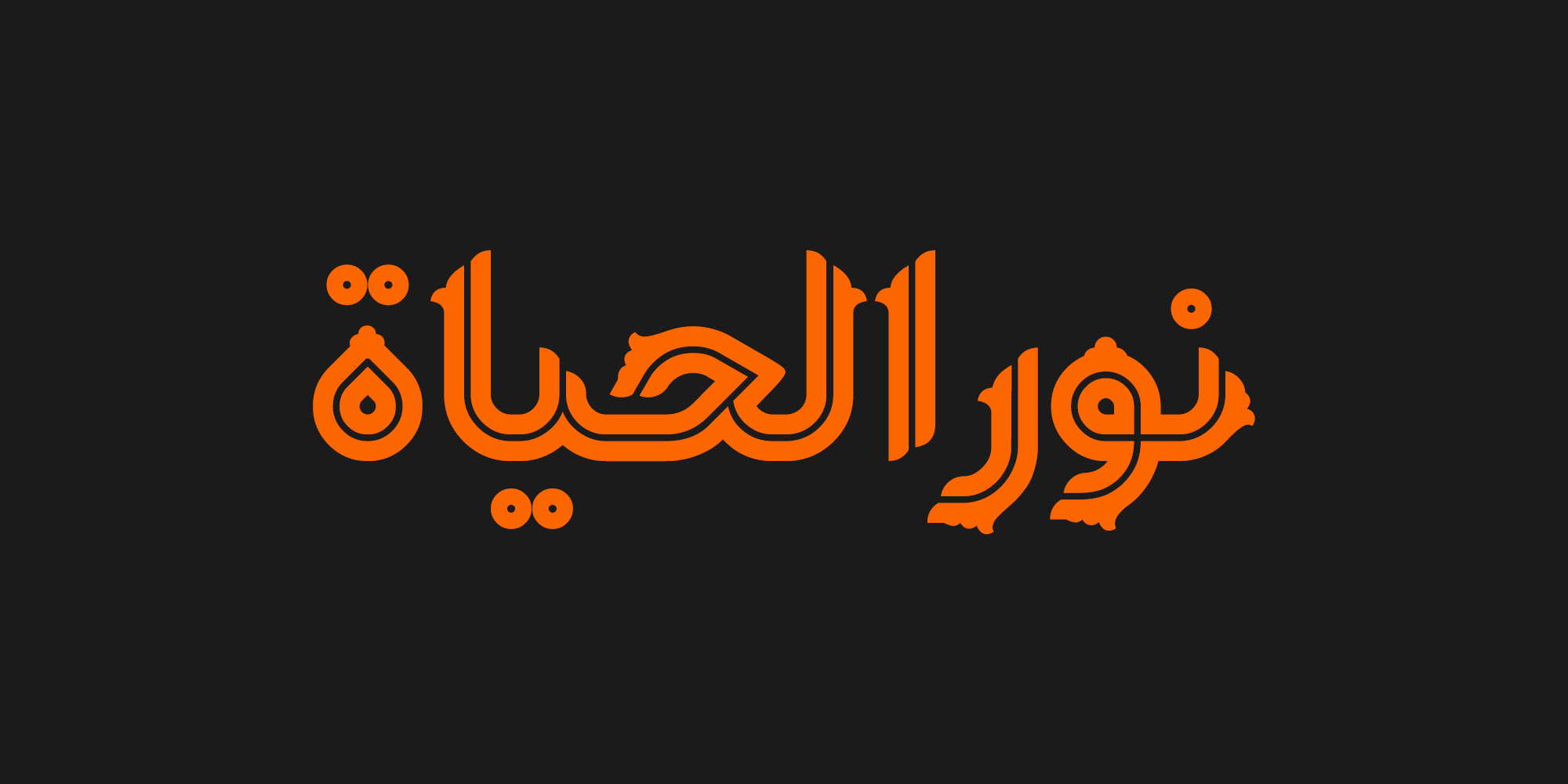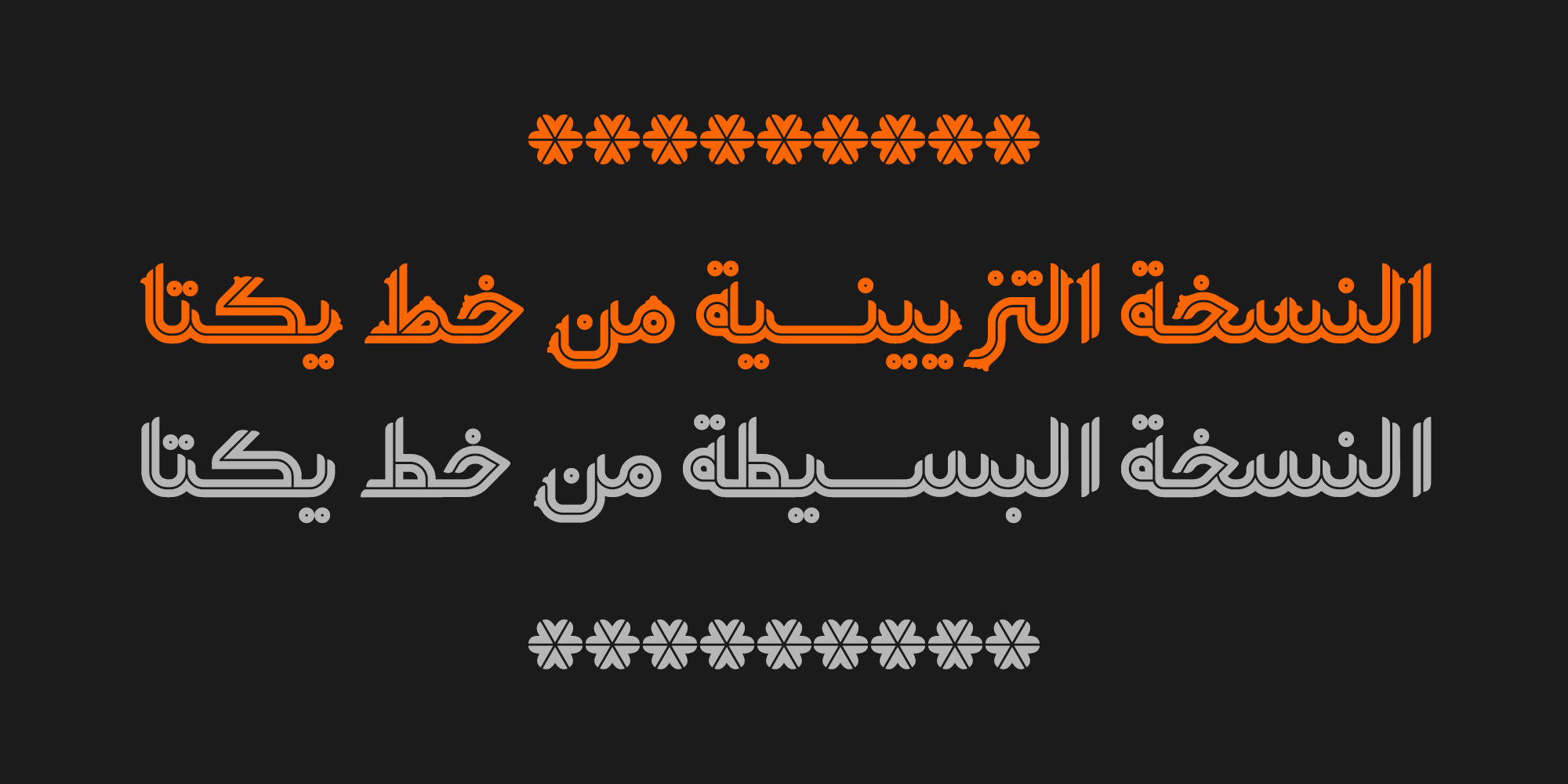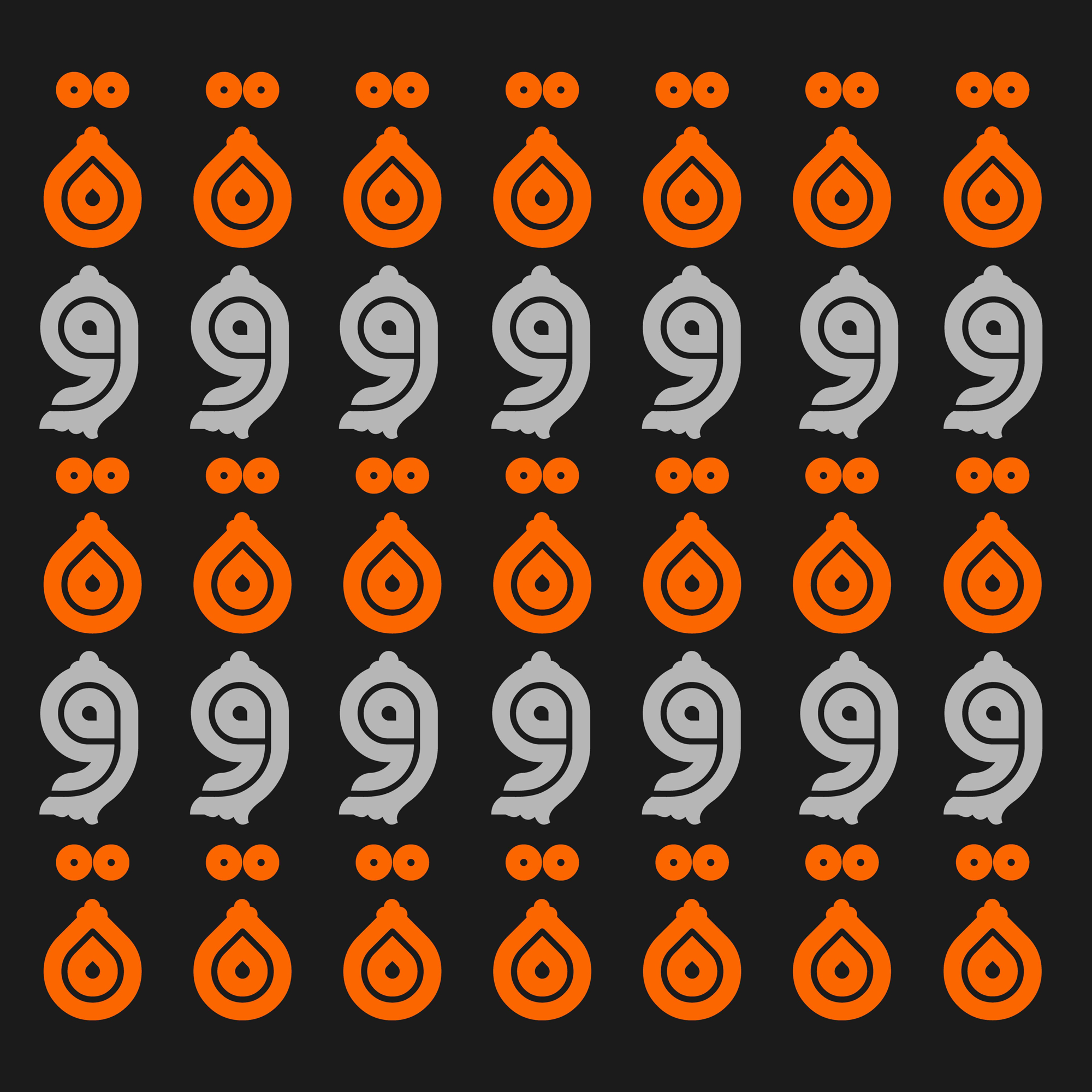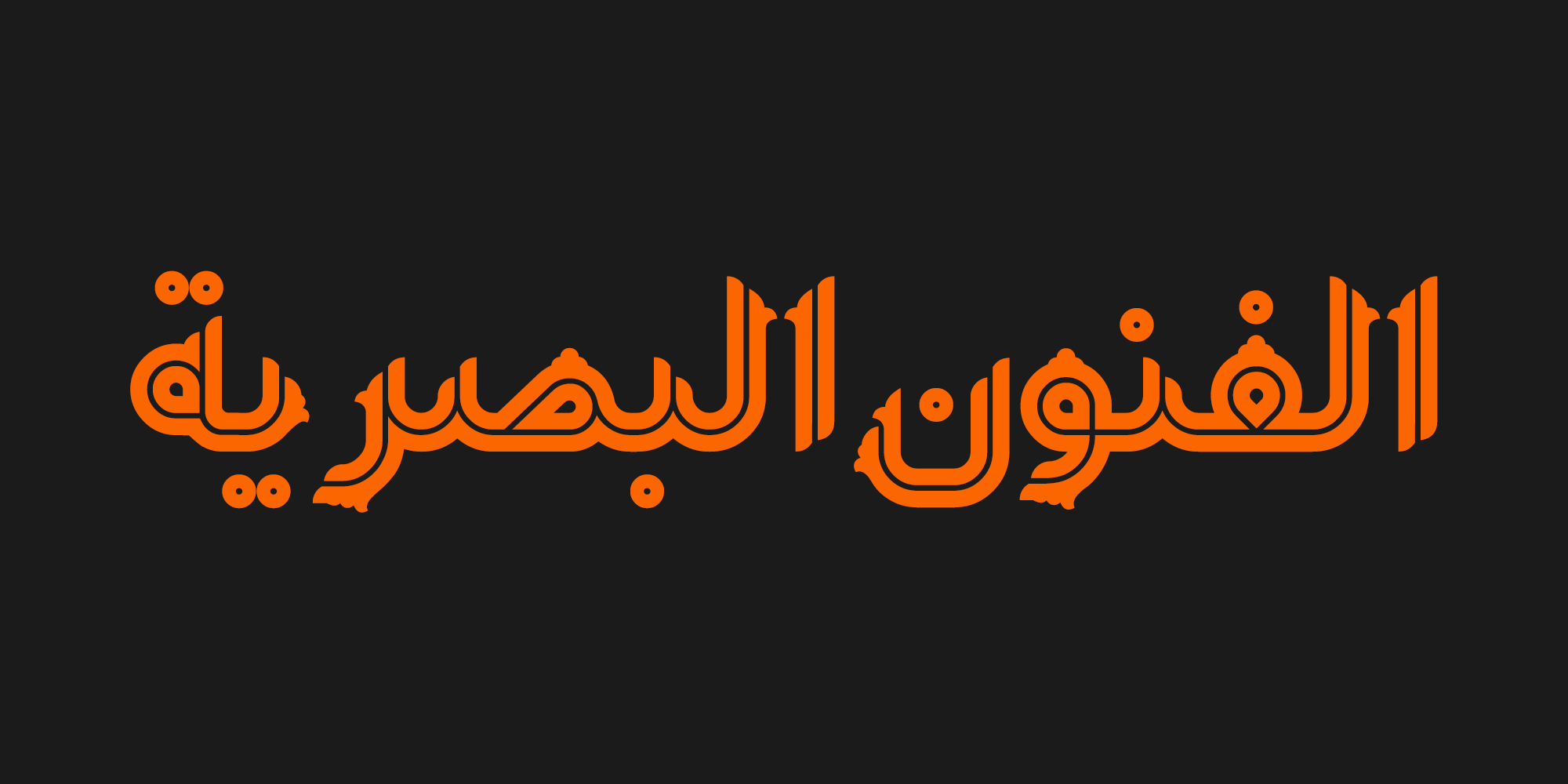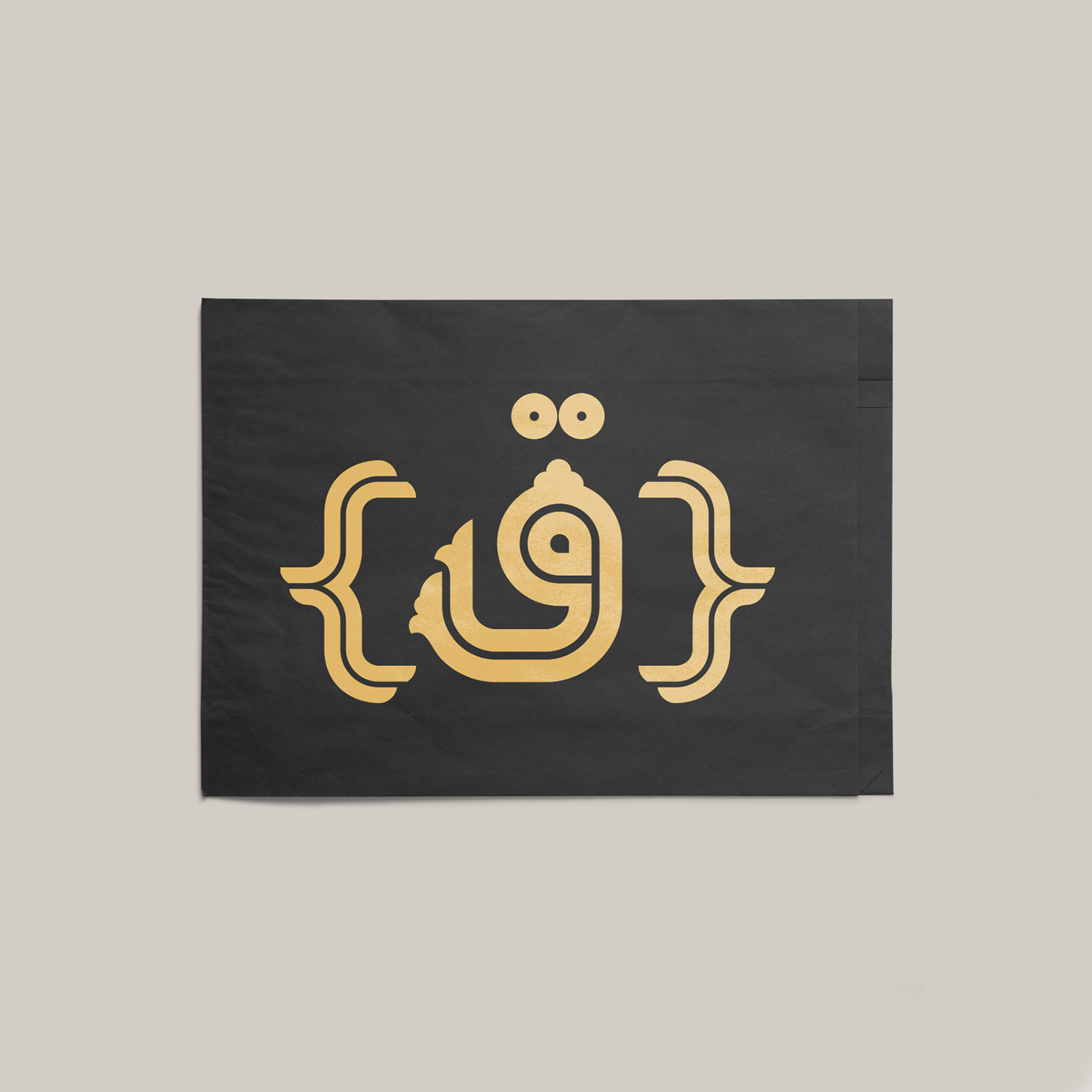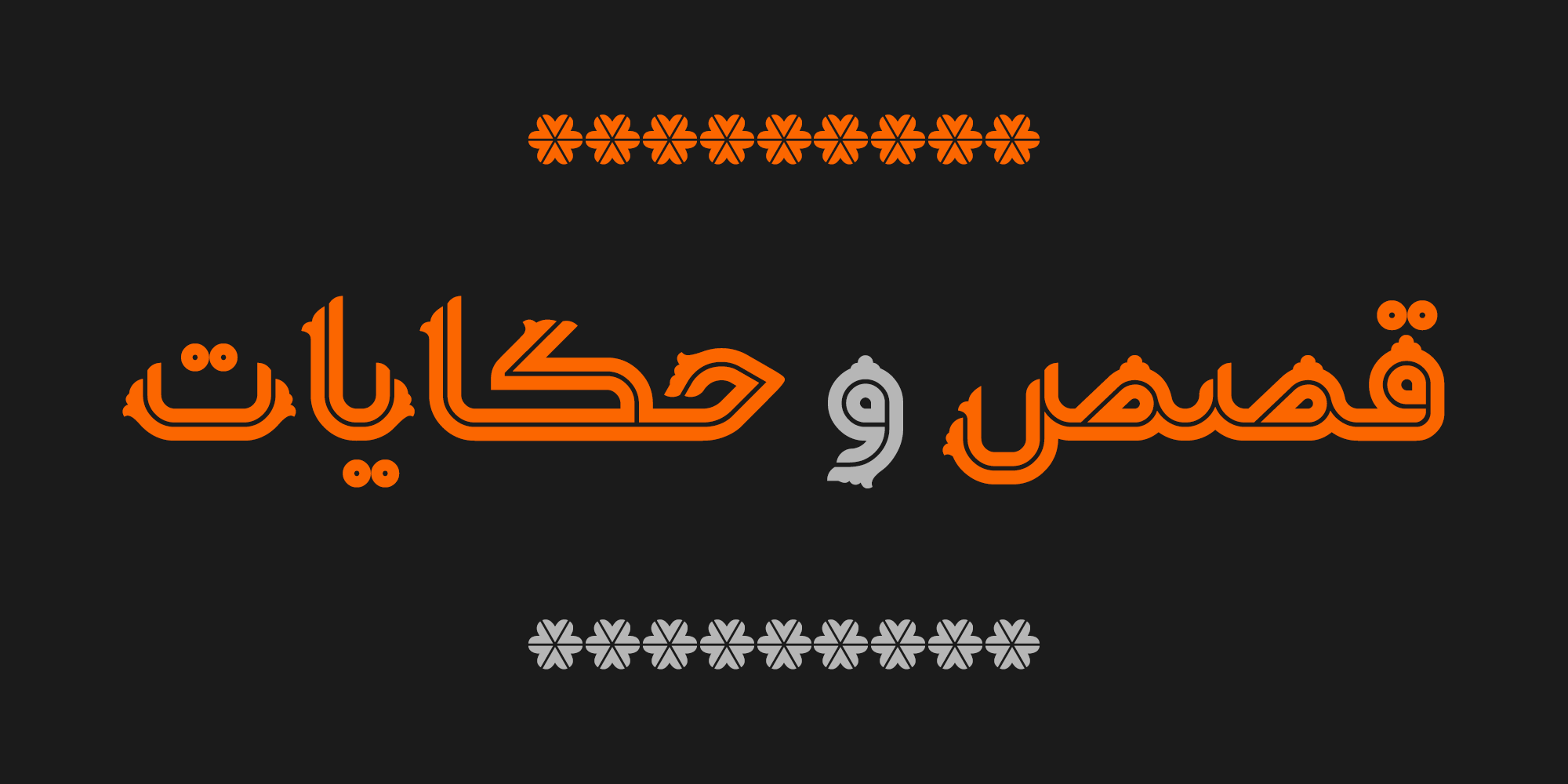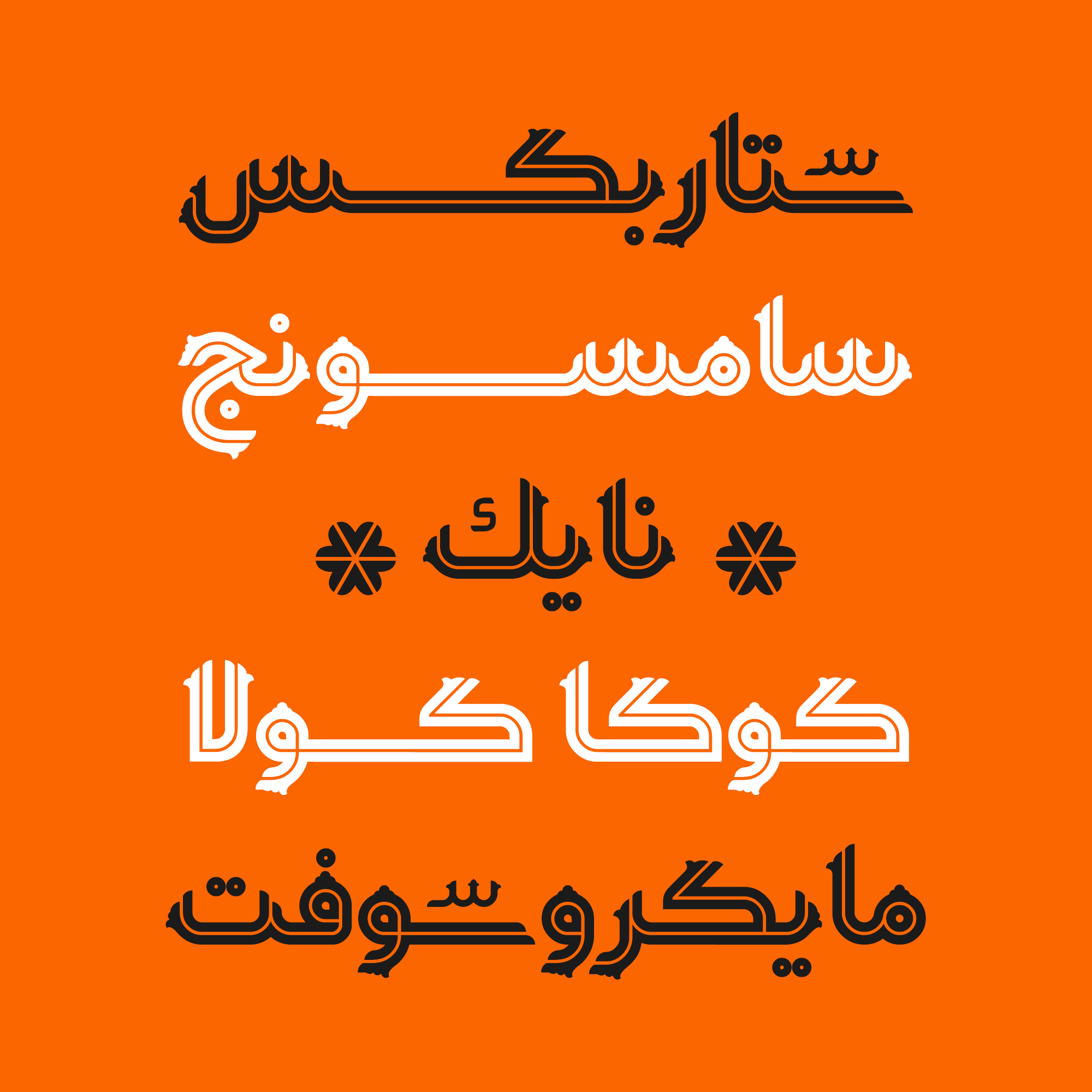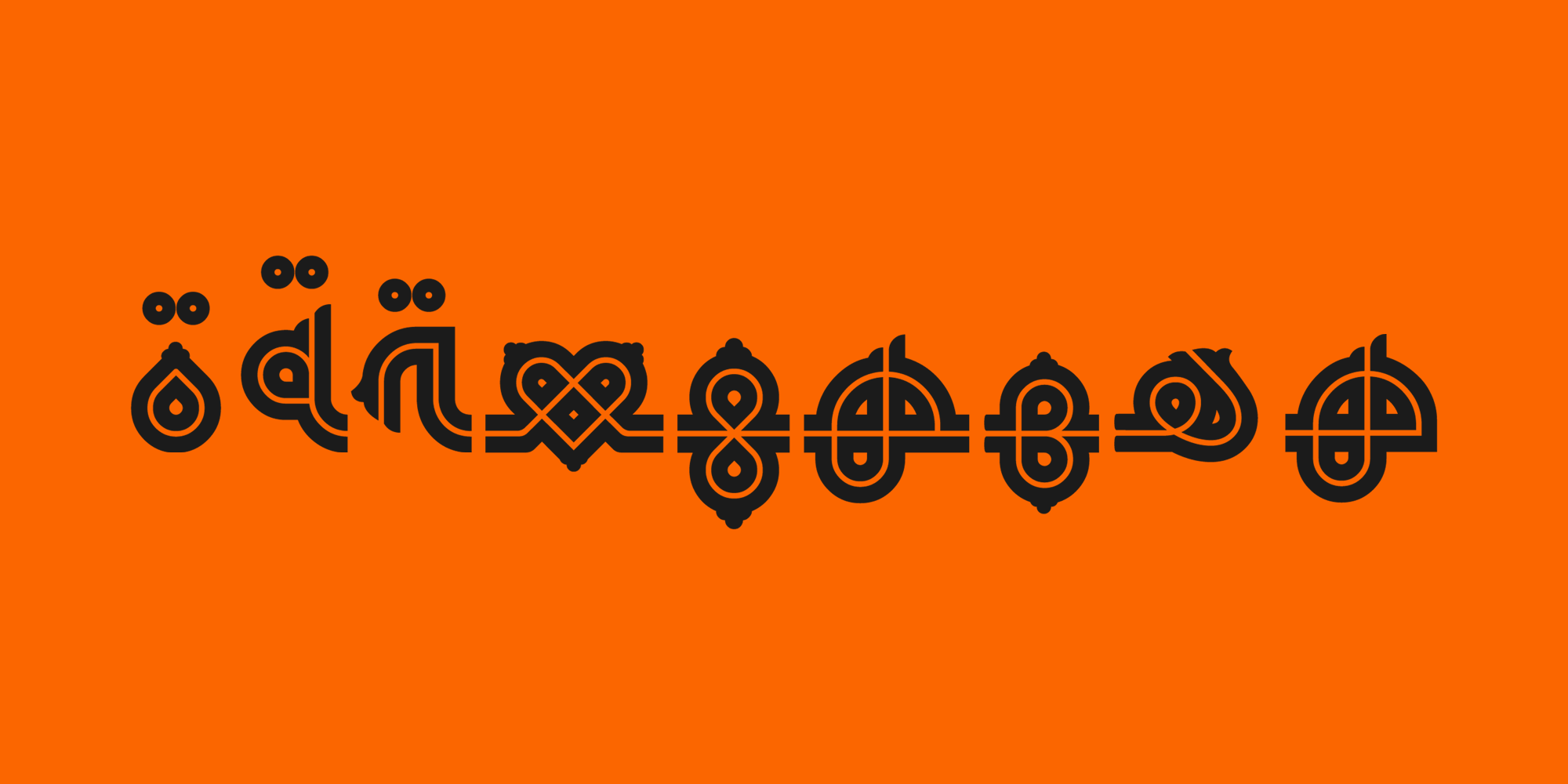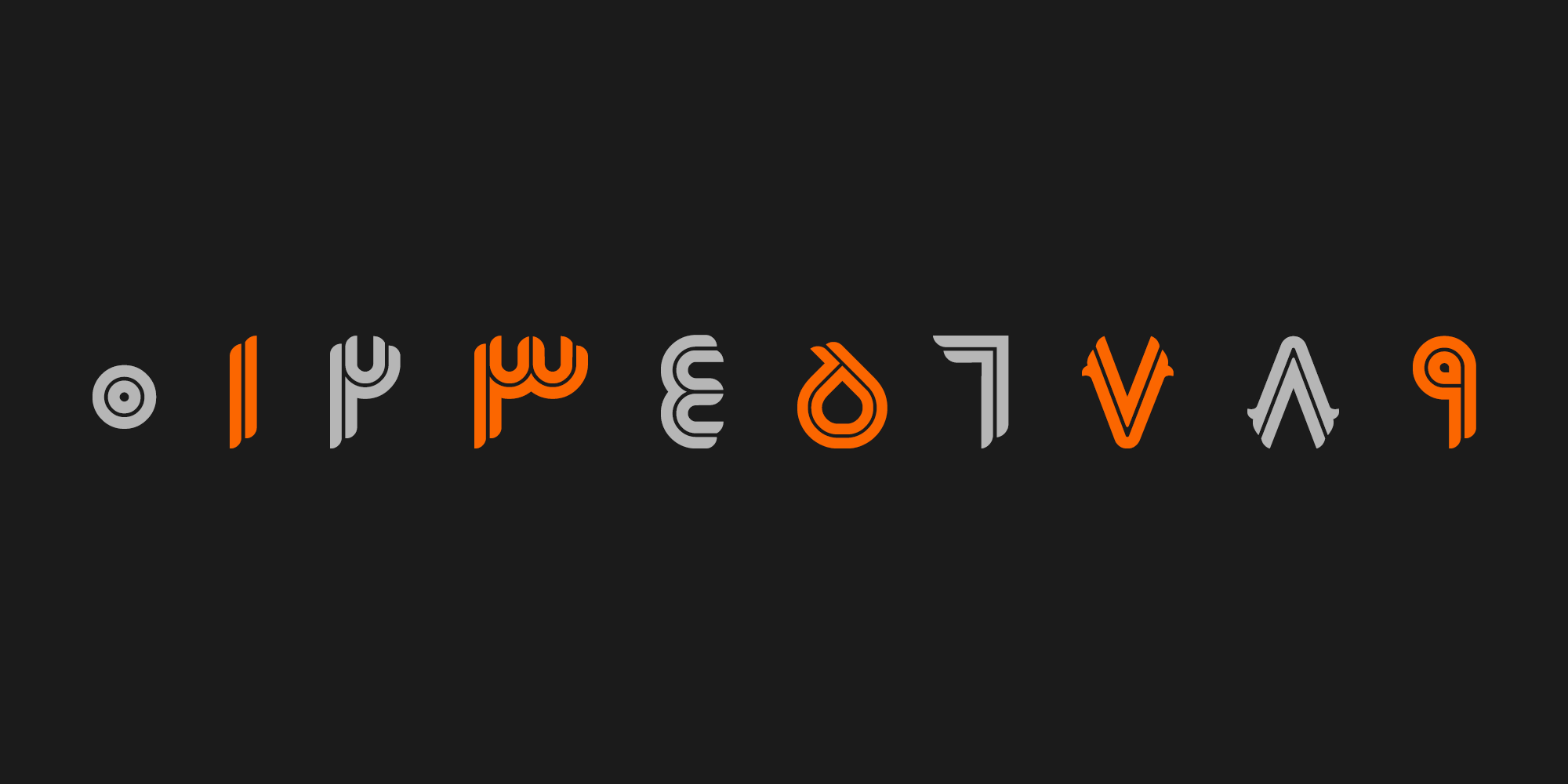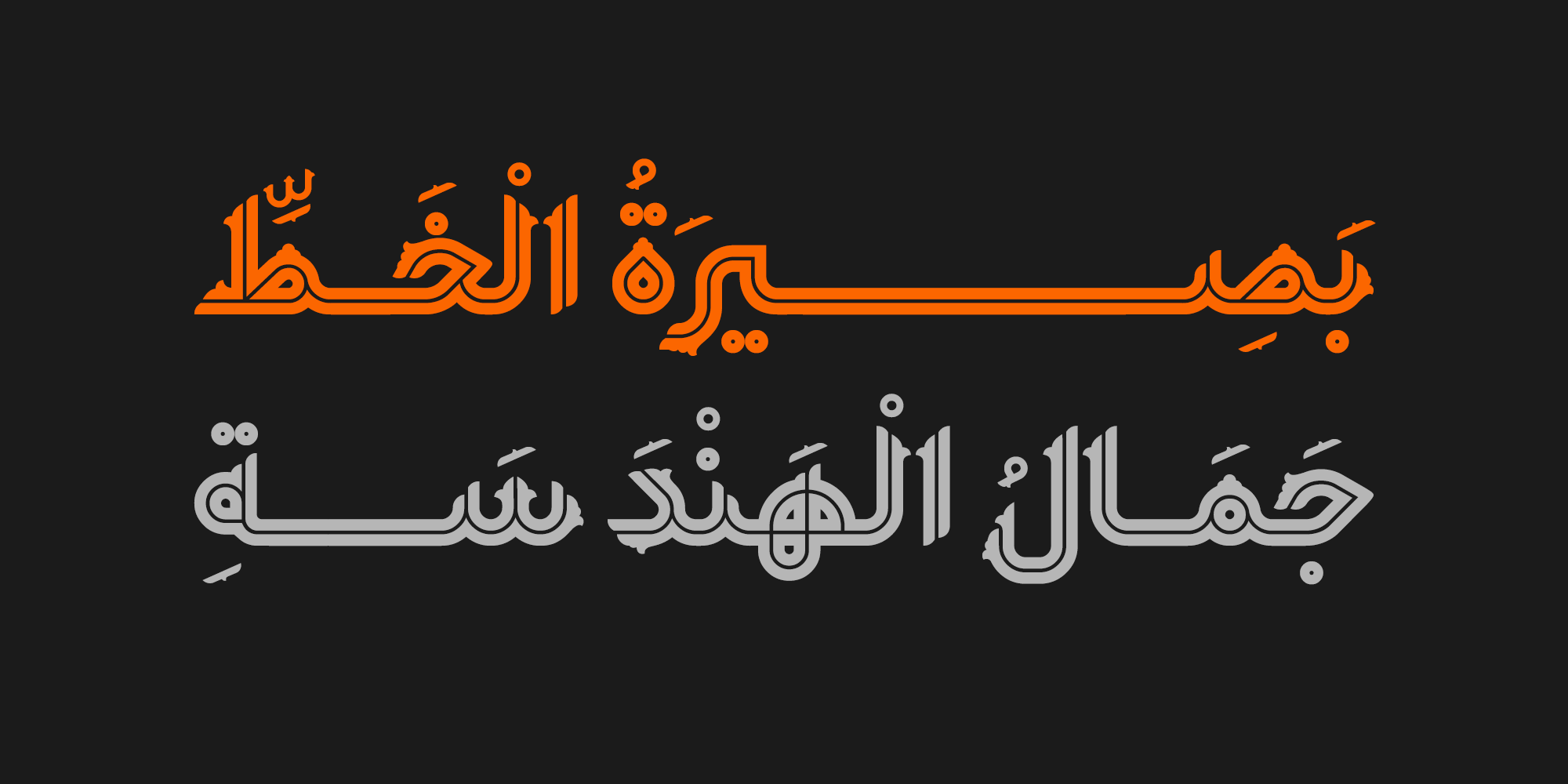
Yekta
Yekta is a geometric display typeface featuring an in-line style and ornamental extensions that enhance its expressive presence. Built on a clean geometric structure, it maintains strong structural stability while offering a distinctive decorative character.
Primarily rooted in the Naskh tradition with subtle references to Kufic forms, Yekta bridges classical calligraphic influence with contemporary geometric construction.
The typeface comes in two styles: a clean base version and a decorative in-line variant. Designed for short texts and large display sizes, it reveals its full visual impact in headlines and cultural or artistic applications.
With a rich character set, alternates, and ligatures, Yekta provides flexibility for expressive typographic compositions.
Yekta is designed by Vahid Yaghoubloo and developed by Amin Abedi.